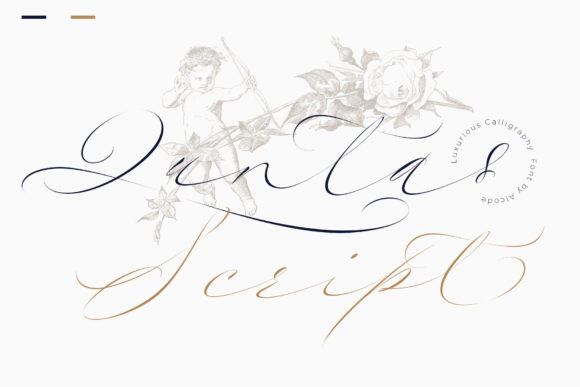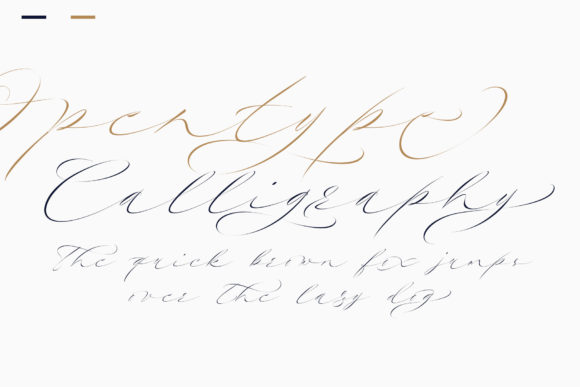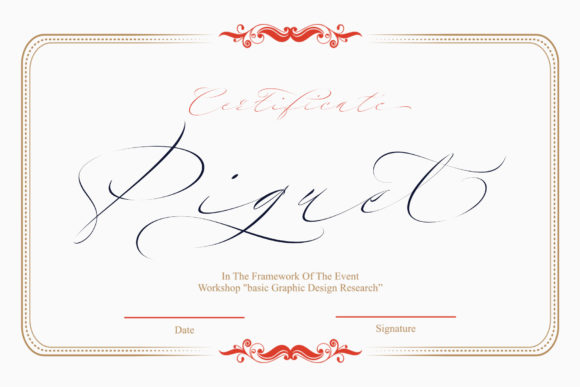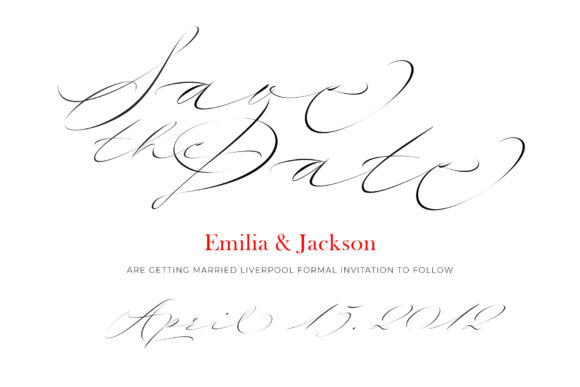
Quntas Script Font
About the Quntas Script Font
Introducing the Quntas Script Font, a beautifully crafted typeface designed to elevate your creative projects. Quntas Script is a thin lettered and graceful script font. Fall for its ravishing style and use it to create gorgeous wedding invitations, beautiful stationary art, eye-catching social media posts, and much more! Quntas Script is PUA encoded which means you can access all glyphs and swashes with ease!
Quntas Script’s elegant thin strokes are ideal for projects requiring a touch of refined sophistication. It excels in headlines, short text blocks on invitations or branding materials, and social media graphics where its delicate forms make a strong visual statement. Avoid using it for body text or lengthy paragraphs; its thinness would hinder readability.
The font’s inherent grace pairs well with clean sans-serif fonts like Lato or Montserrat for a modern contrast, or a classic serif like Garamond or Playfair Display for a more traditional feel. A simple geometric sans-serif could also provide a striking counterpoint, allowing Quntas Script’s flourish to stand out.
Quntas Script’s personality is undeniably elegant and graceful, making it suitable for brands focused on luxury, beauty, fashion, or the arts. Its refined nature lends itself to upscale products and sophisticated marketing.
Quntas Script Font Usage Examples
Quntas Script Font Example